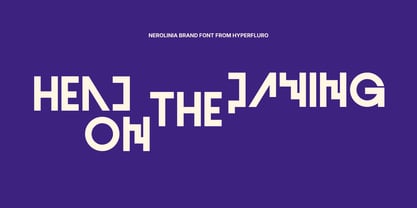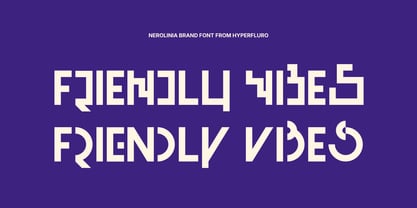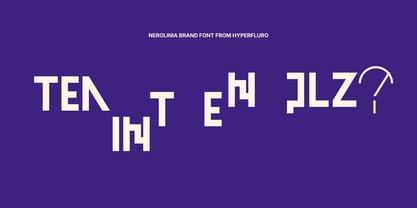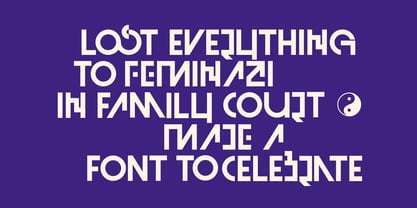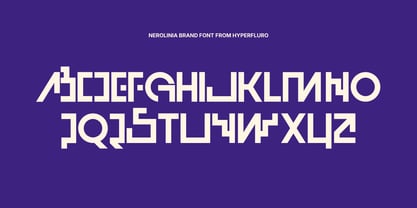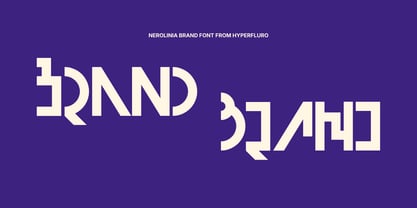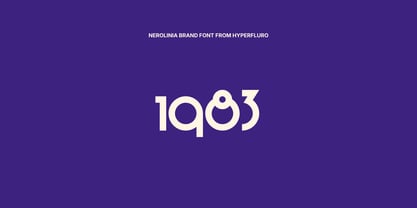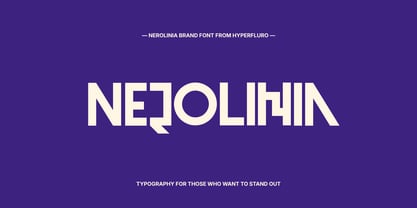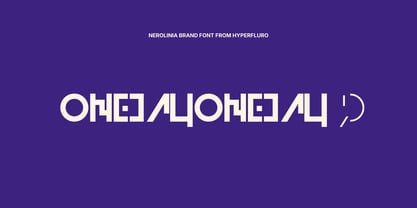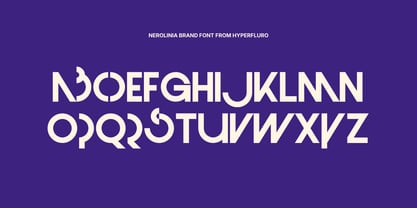
Nerolinia
by HyperFluro
The Nerolinia Font Family was designed by Alex Haigh and published by HyperFluro. Nerolinia contains 1 styles. More about this family
Nerolinia is a bold, modern display headline font designed to command attention across branding, advertising, and editorial design. Crafted for maximum visual impact, this typeface features sharp geometric forms, high contrast strokes, and distinctive letterforms, making it ideal for logos, posters, website headers, social media graphics, and luxury branding projects. Engineered for large-scale typography, Nerolinia performs flawlessly in titles, hero sections, and standout compositions where clarity and personality matter most. Its refined balance between contemporary minimalism and expressive design ensures strong readability while delivering a premium, high-end aesthetic. Perfect for designers, creatives, and brands seeking a unique headline font that stands out from overused Google Fonts, Nerolinia supports modern visual identity systems and elevates brand recognition across digital and print. Whether you're creating fashion branding, music artwork, tech startups, or editorial layouts, this versatile display typeface brings a confident, striking presence to every design.
Designers: Alex Haigh
Foundry: HyperFluro